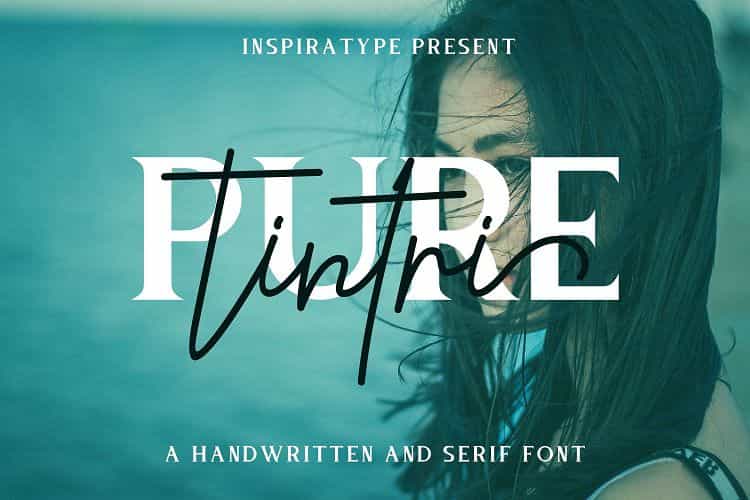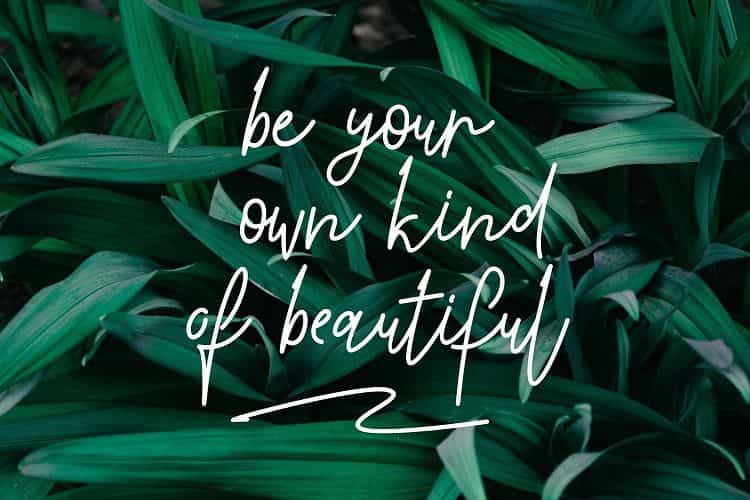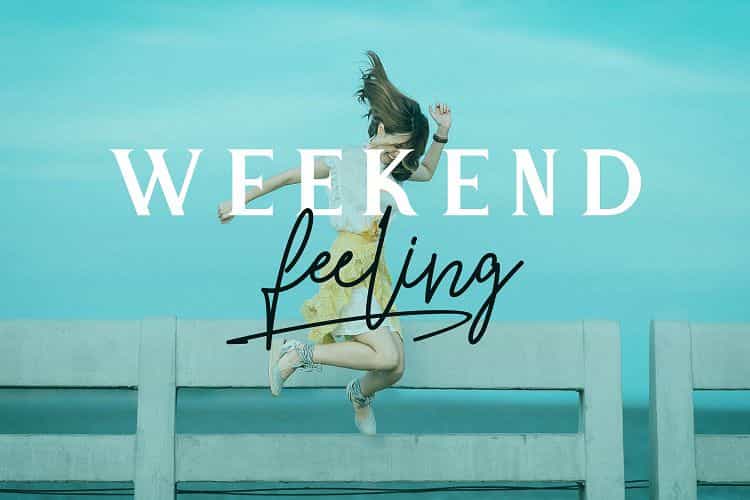
Discover Tintri Pure Font Duo, part of the Handwritten Serif collection—a versatile and unique font perfect for adding a personal touch to your projects. Download it for free and enjoy crafting designs with style, from invitations to social media posts. This font is available exclusively for personal use, giving you the freedom to create without limits. Unlock your creativity with Tintri Pure Font Duo today!
Tintri Pure Script and Serif Font – a new handwritting font duo by Inspiratype. Tintri Pure Font Duo is a font of display that has been made by hand, it was inspired by classic posters. contains uppercase, lowercase, numerals, punctuations and so many other variations on each character which are the opentype alternates. There is a common ligature as well as additional swash to let you customize your designs.